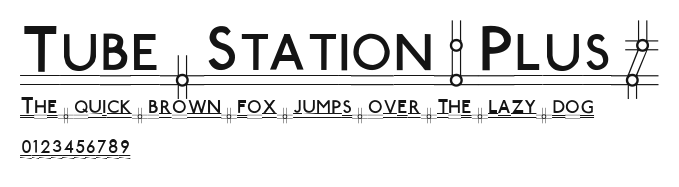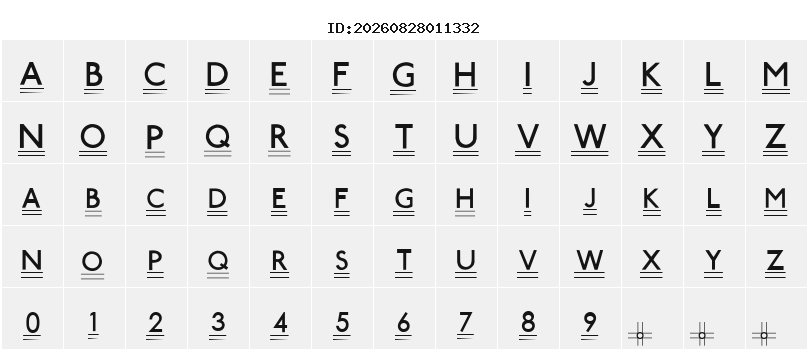
• Font Name: Tube Station-Plus.
• Full Font Name: Tube Station-Plus.
• Version: Version 1.02; Nov 2001
• Copyright: Bree Gorton at the Font Farm
• Designer: Bree Gorton
• Description: Tube Station
About Tube Station-Plus..ttf
Tube Station-Plus..ttf is a modern, elegant sans-serif font designed for ultimate readability and visual harmony. Perfect for branding, headlines, web design, and print materials.